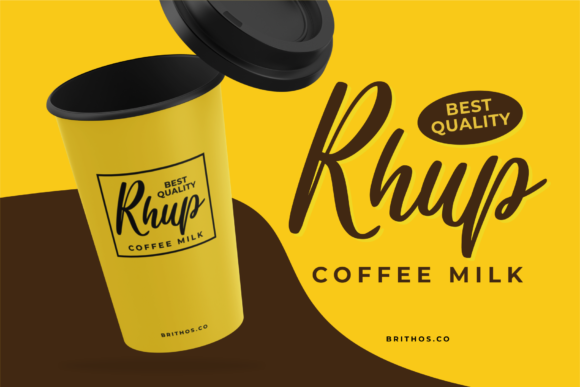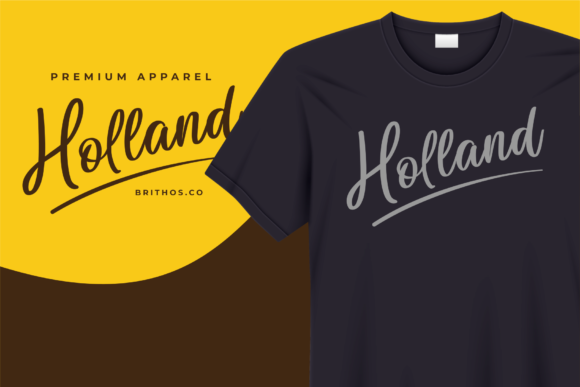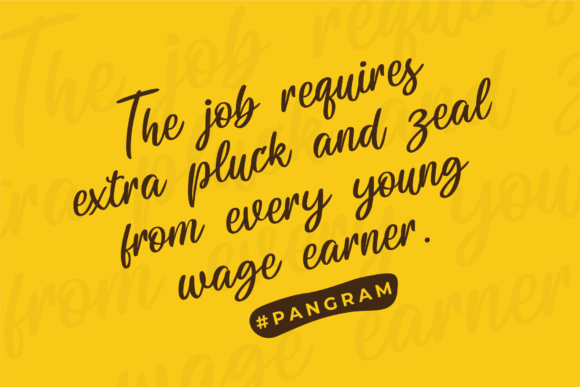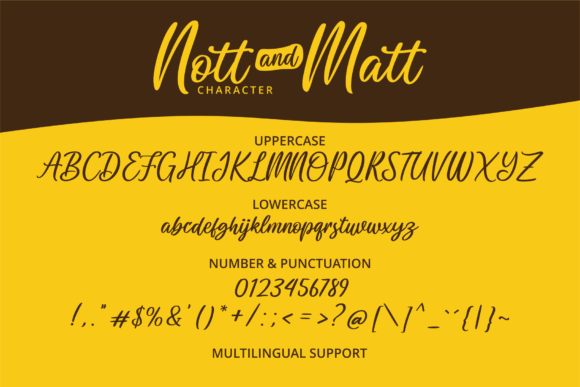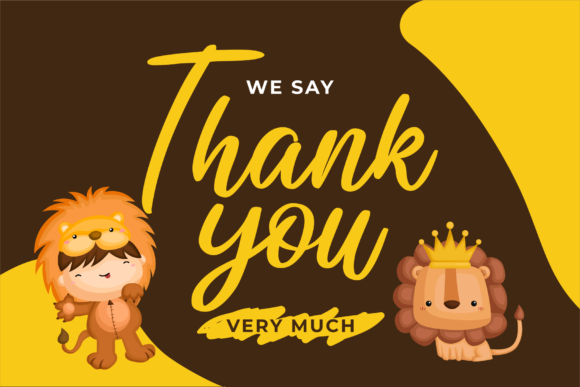
Nott and Matt Font
About Nott and Matt Font
Nott and Matt is an simple and flowing script font with a contemporary atmosphere and impeccable form. Not too thin and not too thick, balanced and varied, Nott and Matt was designed to enhance the beauty of your projects.